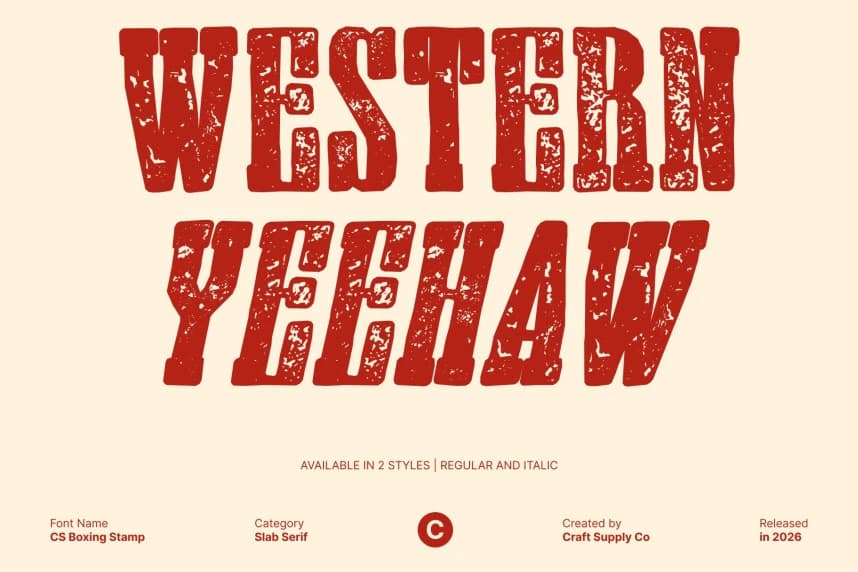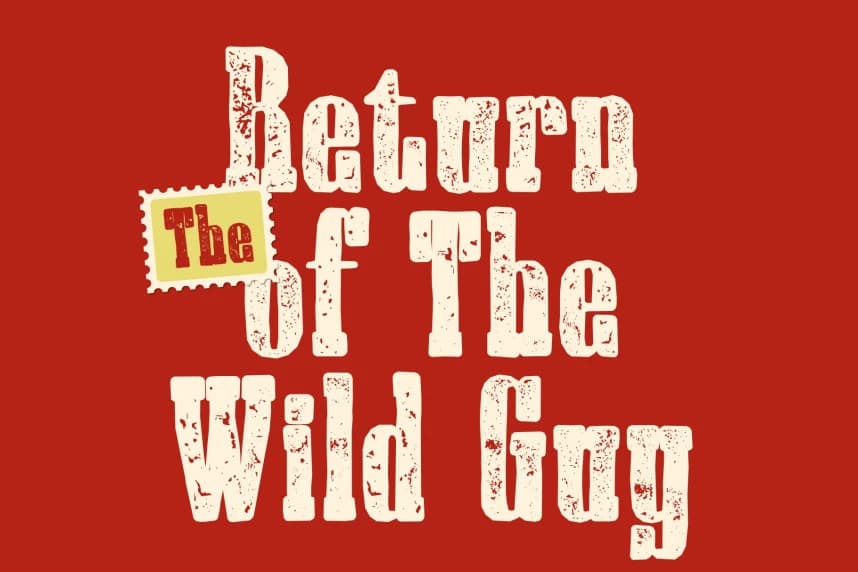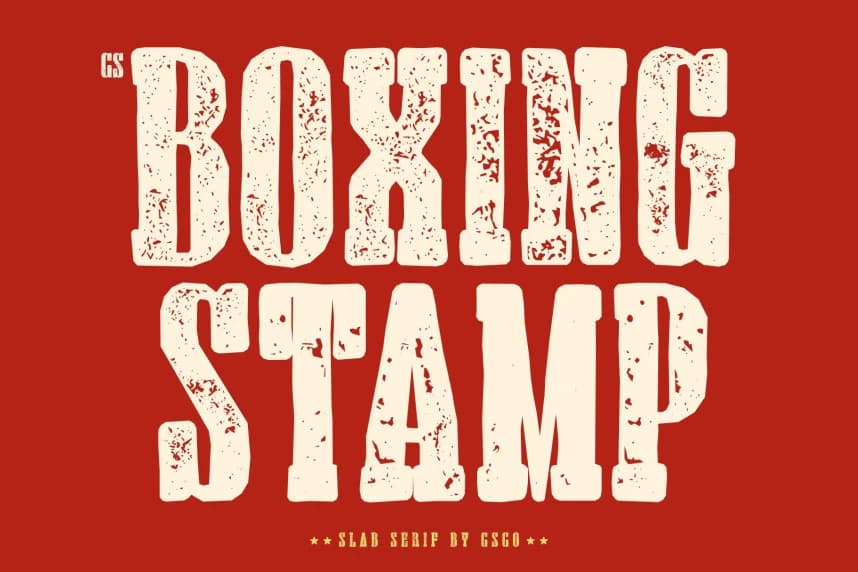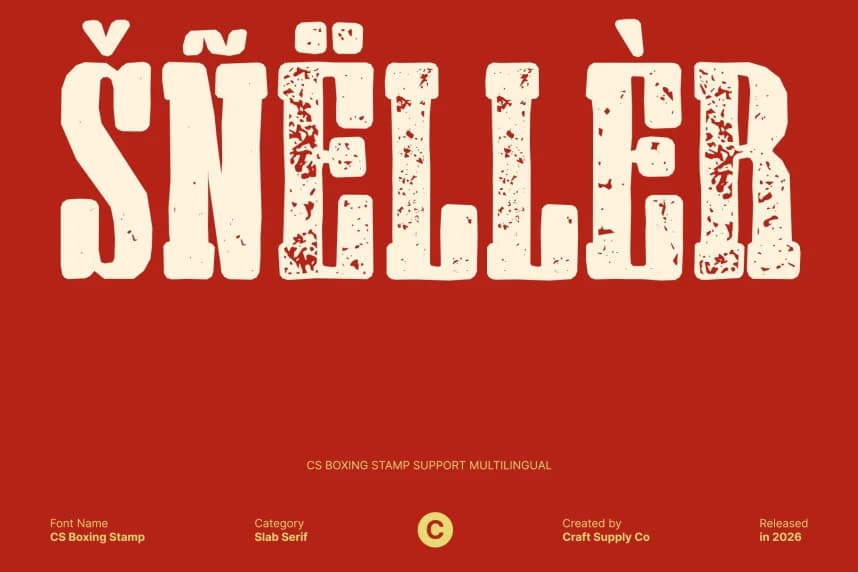
CS Boxing Stamp Font – Retro Slab Serif with Rugged Stamped Impact Vintage Strength with a Textured Finish This takes its bold slab serif foundation and enhances it with a distressed stamped texture, adding grit and authentic vintage character.